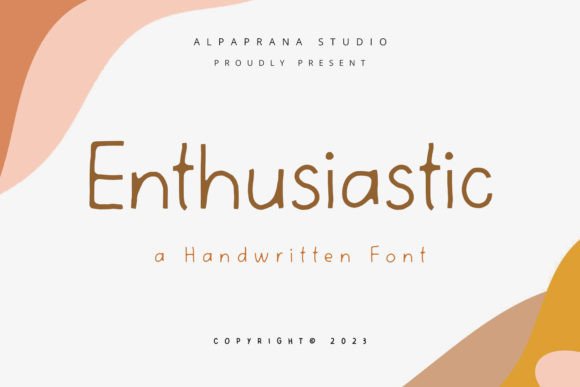
Journey into the realm of charm and playfulness with Enthusiastic Font, a delightful script font crafted by the skilled artisans at alpapranastudio. This enchanting font is more than just a collection of letters and symbols; it's an artistic expression that captures the essence of joy and lightheartedness.
With its distinctively youthful and amicable vibe, Enthusiastic is a perfect choice for email signatures, adding a personal touch that instantly brightens the day of recipients. As you type emails, your words will dance across the screen with an undeniable charm, leaving a lasting impression that lingers long after the message is read.
Enthusiastic's versatility extends far beyond email signatures, making it a treasure trove of creative possibilities. Unleash your imagination as you craft eye-catching greetings cards, inject vibrancy into digital designs, or transform presentations into unforgettable visual experiences. This font is not just a tool; it's a gateway to expressing your creativity like never before.
Dive into the world of Enthusiastic and discover a font that speaks to the child within you, inspiring you to embrace life's joyful moments. Whether you're a seasoned designer, a casual crafter, or even a student embarking on a creative journey, Enthusiastic will become your trusted companion, ready to bring a smile to your face and captivate the hearts of those who encounter your creations.
Don't let life's mundane moments dull your creative spark. Choose Enthusiastic Font today and unlock a world of imaginative possibilities. Let your emails radiate warmth, your designs exude playfulness, and your cards overflow with cheer. Prepare to be swept away by the infectious charm of Enthusiastic, a font that is sure to ignite your creative passions and leave an indelible mark on every project you undertake.